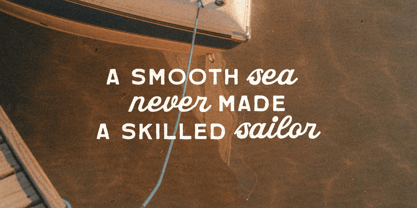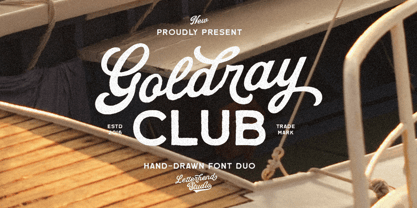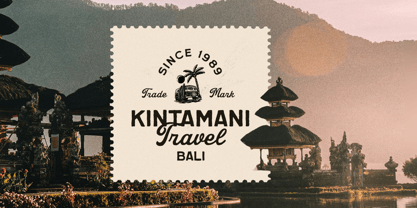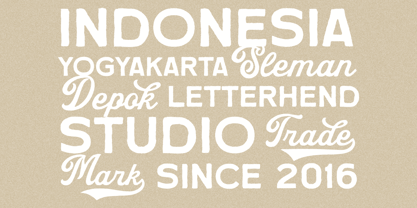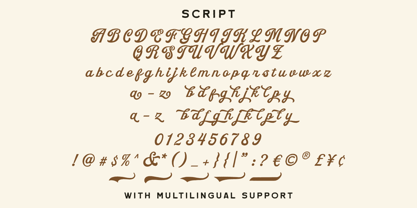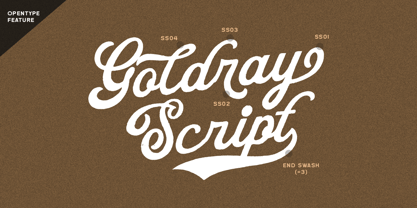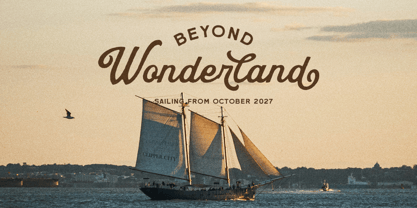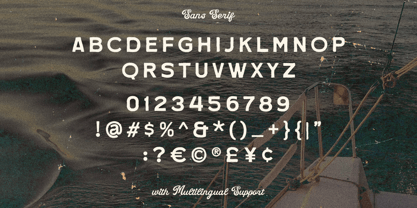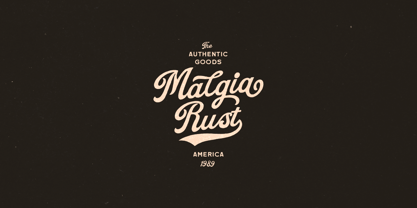
Goldray Club
by Letterhend
The Goldray Club Font Family was designed by Hendry Juanda and published by Letterhend. Goldray Club contains 2 styles and family package options. More about this family
Goldray Club rolls in smooth and sunny, blending a laid-back script with a clean sans, bringing that hand-drawn warmth while the sans keeps everything neat and easy to read—like a perfect duo that just clicks. It carries a relaxed retro vibe with a touch of classic travel charm, making it just right for logos, packaging, posters, and branding that feel warm, friendly, and a little nostalgic. Features : Uppercase & lowercase Script & Sans Numbers and punctuation Alternates Character Multilingual Support PUA encoded